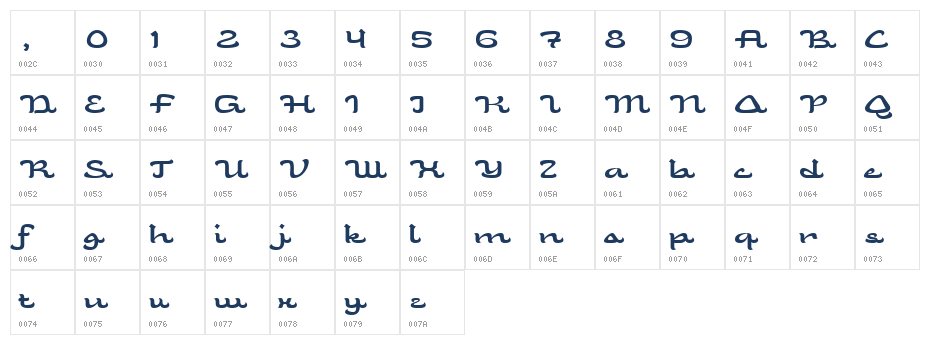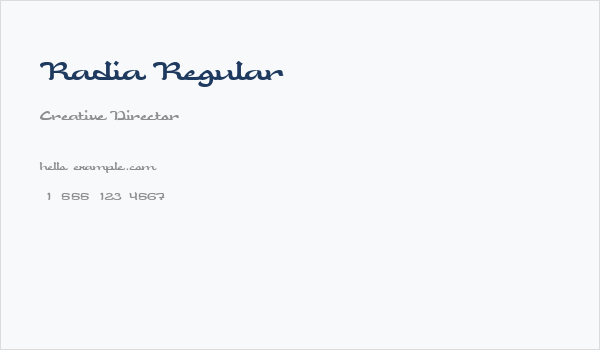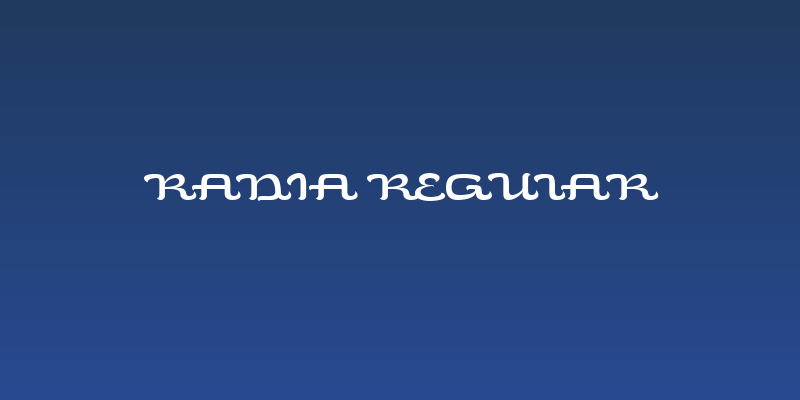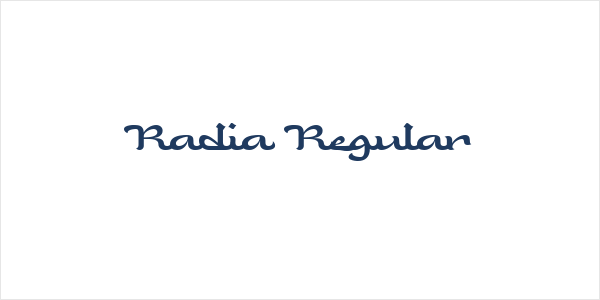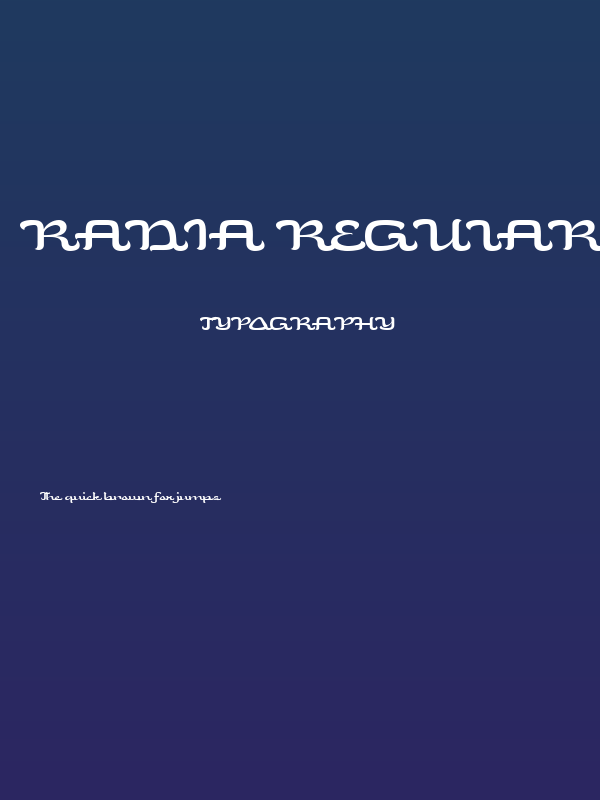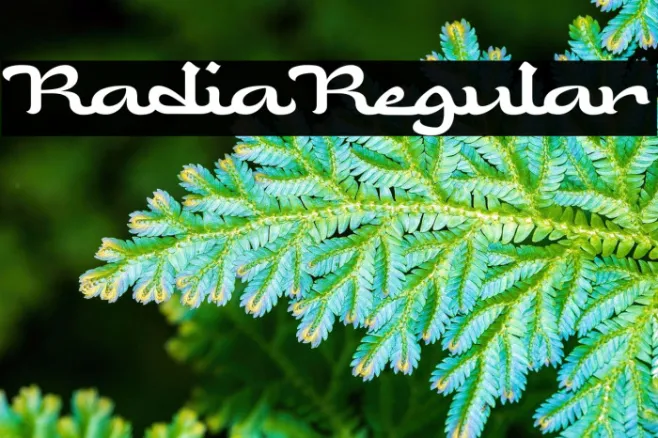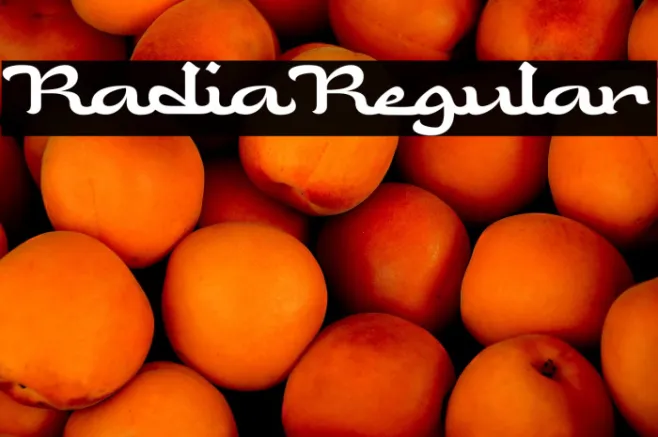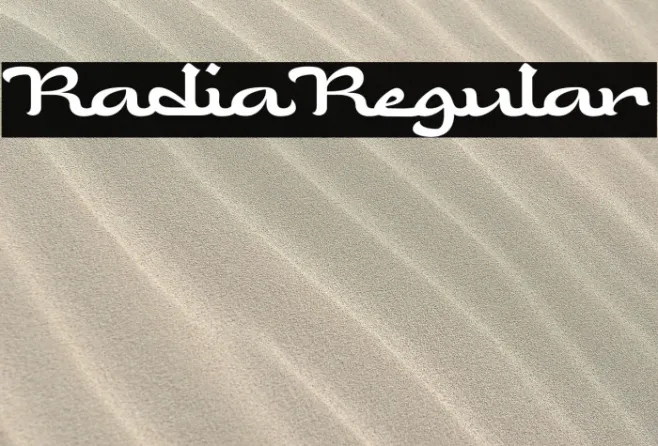
Radia Regular Font
Radia Regular Description
A playful, rounded script font with a handwritten style, featuring smooth curves and a casual appearance.
Radia
| Overall Style | Casual, Playful, Handwritten |
| Use Case | Invitations, Greeting Cards, Logos, Branding |